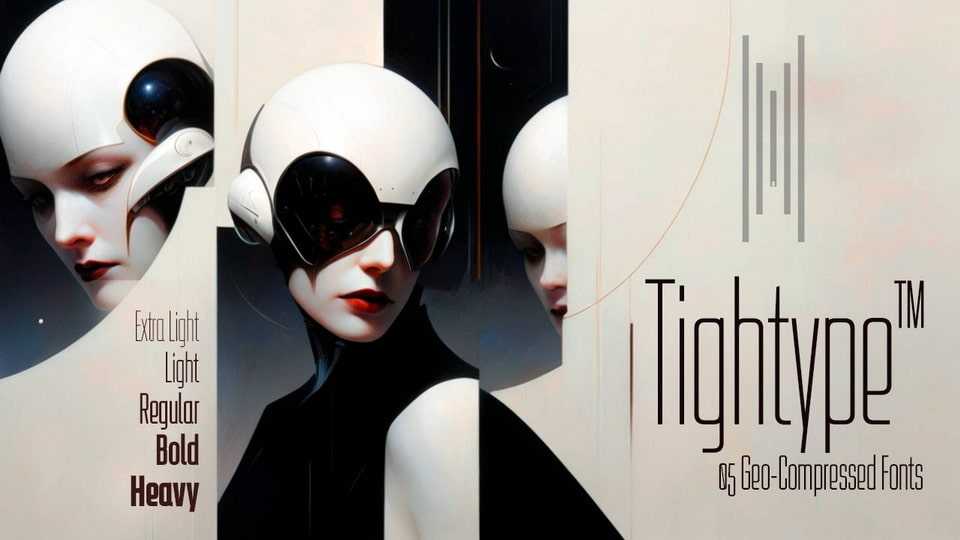
Download Tightype font, a compressed sans serif font family, notable for its elegance derived from an exaggerated vertical proportion.
Designer: Fernando Haro